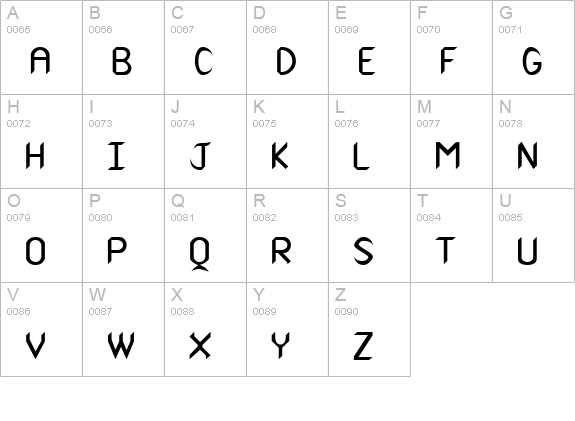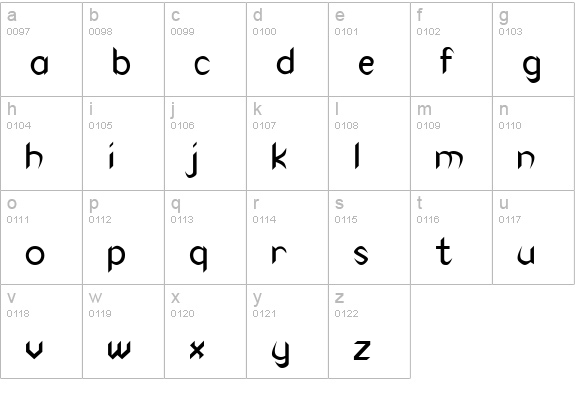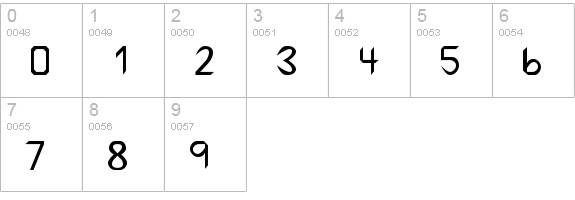
QTCanaithtype Regular Font Details
QTCanaithtype Regular is the standard, neutral variant in the QTCanaithtype typeface family \xE2\x80\x94 well suited to general body text, paragraphs, and standard typographic work.
QTCanaithtype Regular font is a stunning typeface that effortlessly combines elegance with timeless craftsmanship. Its sleek and clean design makes it perfect for a wide range of projects, from branding and advertising to editorial and web design. This font features a balanced and harmonious letterform, with smooth curves and sharp edges that create a sense of sophistication and professionalism. The attention to detail in each character gives QTCanaithtype Regular font a sense of refinement that is sure to make any text stand out from the crowd. One of the most appealing aspects of QTCanaithtype Regular font is that it is freely available to download at FontsMarket.com. This means that designers and typographers can access this remarkable font without any cost, making it an excellent choice for both personal and commercial projects. Whether you are looking to create eye-catching headlines or elegant body text, QTCanaithtype Regular font is sure to exceed your expectations. Its versatility and timeless appeal make it a must-have for any designer's font collection. Download QTCanaithtype Regular font for free at FontsMarket.com and experience the beauty and versatility of this remarkable typeface for yourself.